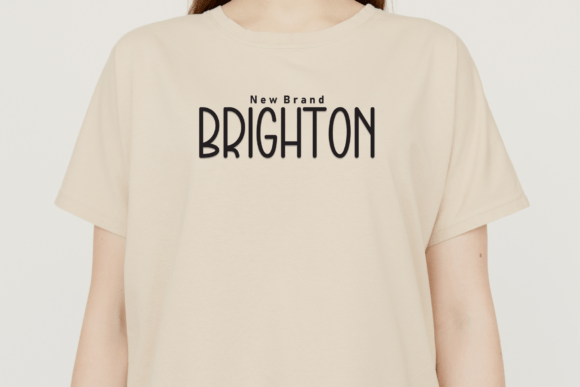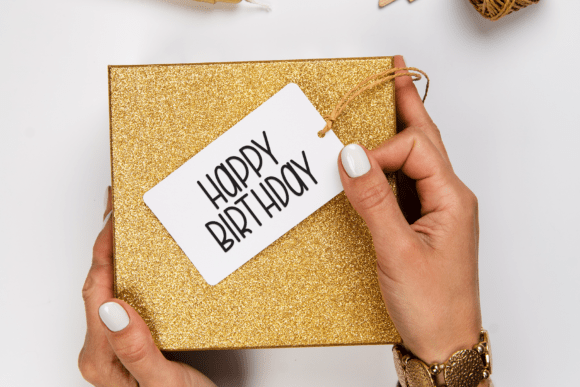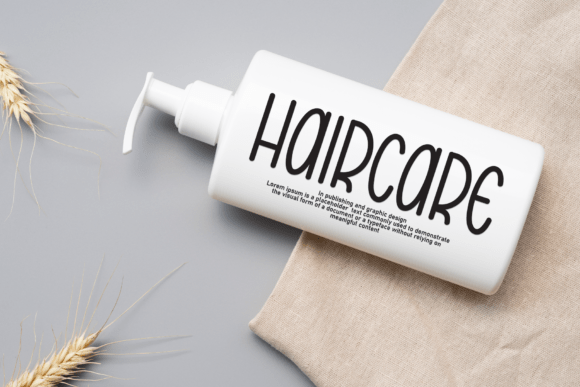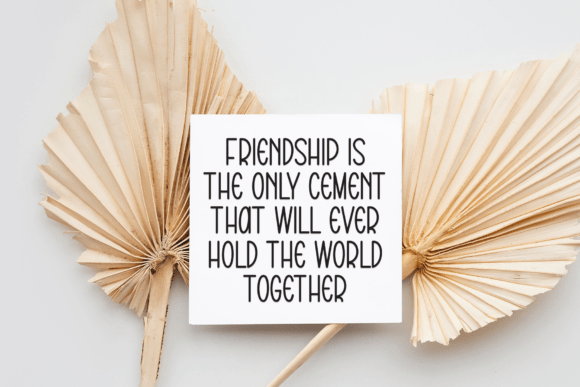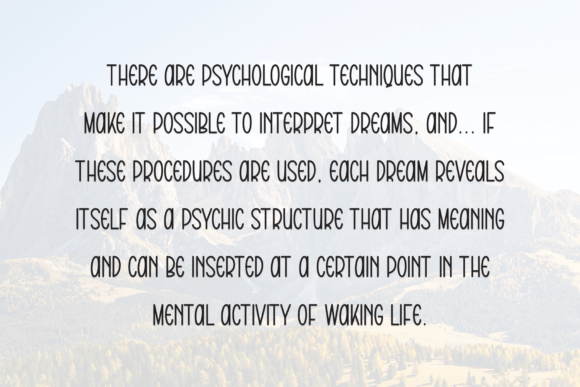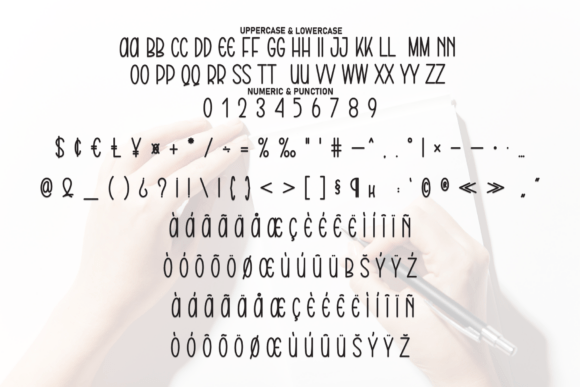
The Charm of Ballpoint Handwriting Font
Have you ever been in the middle of a design project, pouring your heart and soul into it, only to get stuck on one tiny detail – the font? I certainly have! It was during a wedding invitation design project that I stumbled upon the delightful Ballpoint Handwriting Font. Its warm, friendly appeal and adorably quirky style instantly won me over. In this article, I’ll share my experience with this charming font, its features, and how you can make the most of it in your designs.
A Design Moment of Frustration and Delight
I was working on a wedding invitation design for a dear friend’s big day. The client wanted something elegant yet playful, but I was struggling to find the perfect font to match the tone. That’s when I discovered the Ballpoint Handwriting Font. Its unique, hand-written style with a touch of whimsy was exactly what I needed to bring the design to life. I was thrilled to see how this font could add a personal touch to the invitation, making it truly special for the couple.
Here’s my honest review of the Ballpoint Handwriting Font:
- ✨ Unique and quirky style that adds a touch of whimsy to any design
- ✅ Warm and friendly appeal that’s perfect for personal notes and wedding invitations
- 💕 Adorably handwritten look that’s sure to capture attention
- 🤔 Some letters may appear a bit inconsistent in size, which can be adjusted with kerning
- ⚠️ Limited use of uppercase letters, but the font makes up for it with its charming lowercase letters
The Designer Inspiration Behind Ballpoint Handwriting Font
The Ballpoint Handwriting Font was inspired by the nostalgic feel of handwritten notes and letters. The designer aimed to create a font that captures the warmth and personality of handwritten text, while still being legible and easy to read. The result is a charming font that adds a touch of whimsy to any design.